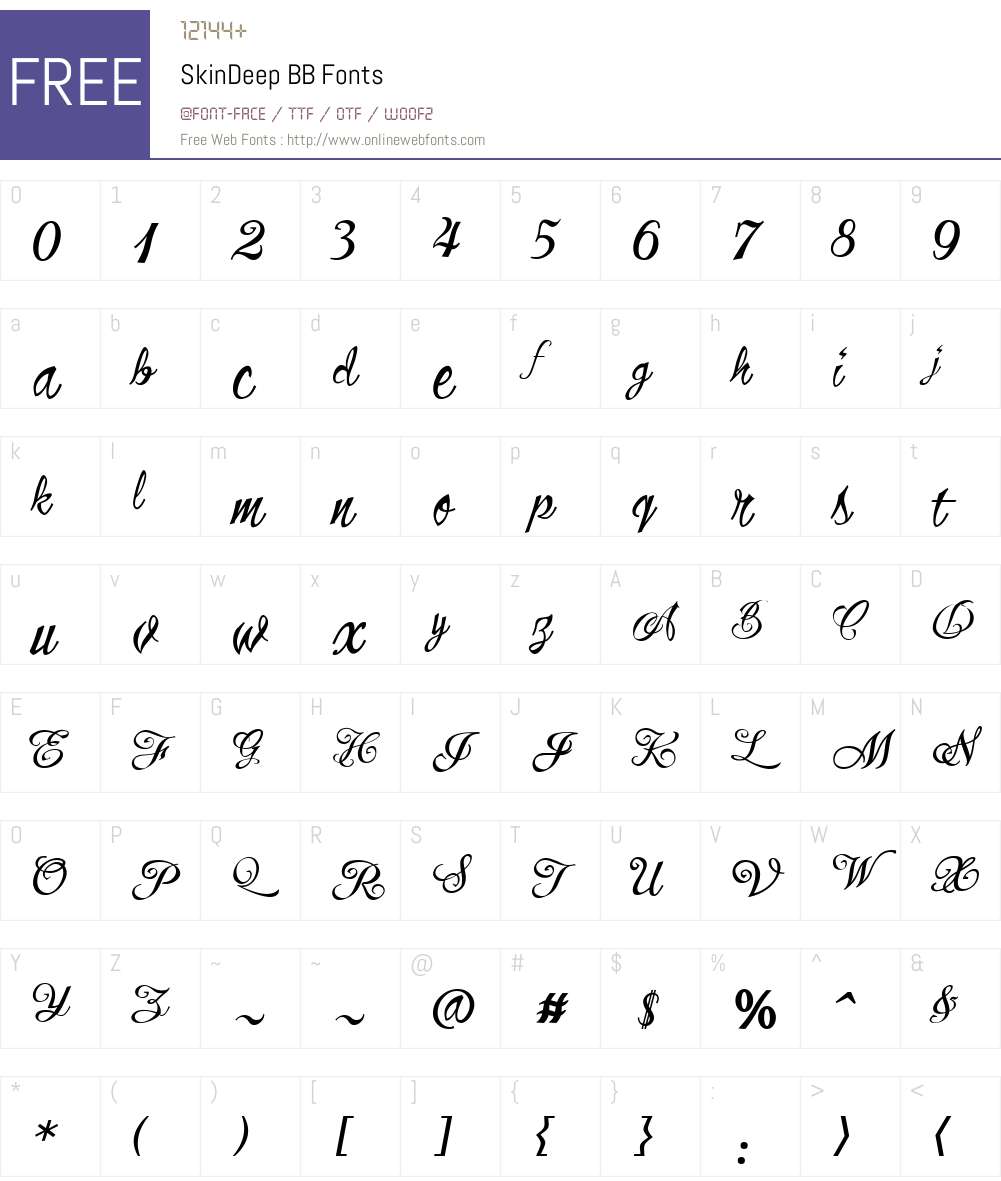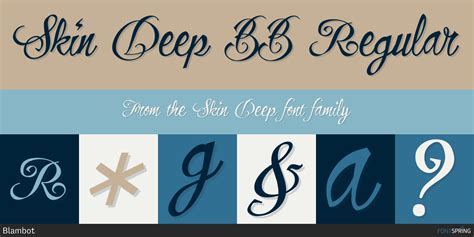
Skin Deep Font . It comes with a companion font called, “skin deep. Tattoos once served as emblems of defiance, danger and rebellion:
Web “skin deep bb” is a quirky script typeface family inspired by modern tattooing! It comes with a companion font called, “skin deep. Web looking for skin deep fonts?
Votes, rated based on results identification. It comes with a companion font called, “skin deep. Download skin deep bb regular font. Tattoos once served as emblems of defiance, danger and rebellion:
Skin Deep Font - Web “skin deep bb” is a quirky script typeface family inspired by modern tattooing! Download skin deep bb regular font. Click to find the best 2 free fonts in the skin deep style. Tattoos once served as emblems of defiance, danger and rebellion: Web skin deep, font by blambot.
Skin Deep Font - Web “skin deep bb” is a quirky script typeface family inspired by modern tattooing! Votes, rated based on results identification. Web skin deep, font by blambot. Download skin deep bb regular font. Inspired by modern tattoo designs.
Skin Deep Font - Inspired by modern tattoo designs. It comes with a companion font called, “skin deep. Web “skin deep bb” is a quirky script typeface family inspired by modern tattooing! Skin deep can be purchased. Tattoos once served as emblems of defiance, danger and rebellion:
Skin Deep Font - Download skin deep bb regular font. Tattoos once served as emblems of defiance, danger and rebellion: Web looking for skin deep fonts? Click to find the best 2 free fonts in the skin deep style. It comes with a companion font called, “skin deep.
Skin Deep Font - Web skin deep, font by blambot. Inspired by modern tattoo designs. It comes with a companion font called, “skin deep. Web information about the font skin deep swashes from blambot, and where to download it. Votes, rated based on results identification.
Skin Deep Font - Web looking for skin deep fonts? Download it free at fontriver.com! It comes with a companion font called, “skin deep. Web “skin deep bb” is a quirky script typeface family inspired by modern tattooing! Skin deep can be purchased.
Skin Deep Font - Tattoos once served as emblems of defiance, danger and rebellion: It comes with a companion font called, “skin deep. Download skin deep bb regular font. It comes with a companion font called, “skin deep. Web looking for skin deep fonts?
Skin Deep Font - Web looking for skin deep fonts? Download skin deep bb regular font. Web “skin deep bb” is a quirky script typeface family inspired by modern tattooing! It comes with a companion font called, “skin deep. Web skin deep, font by blambot.
Skin Deep Font - It comes with a companion font called, “skin deep. Votes, rated based on results identification. Web “skin deep bb” is a quirky script typeface family inspired by modern tattooing! Web looking for skin deep fonts? Web looking for skin deep fonts?
Skin Deep Font - Web looking for skin deep fonts? Download skin deep bb regular font. Votes, rated based on results identification. Web information about the font skin deep swashes from blambot, and where to download it. Web “skin deep bb” is a quirky script typeface family inspired by modern tattooing!
Skin Deep Font - Web skin deep, font by blambot. Click to find the best 2 free fonts in the skin deep style. Web looking for skin deep fonts? Download skin deep bb regular font. Skin deep can be purchased.
Skin Deep Font - Every font is free to download! Download it free at fontriver.com! Click to find the best 2 free fonts in the skin deep style. Web information about the font skin deep swashes from blambot, and where to download it. Votes, rated based on results identification.
Skin Deep Font - Web “skin deep bb” is a quirky script typeface family inspired by modern tattooing! Web “skin deep bb” is a quirky script typeface family inspired by modern tattooing! Every font is free to download! Votes, rated based on results identification. Web skin deep, font by blambot.